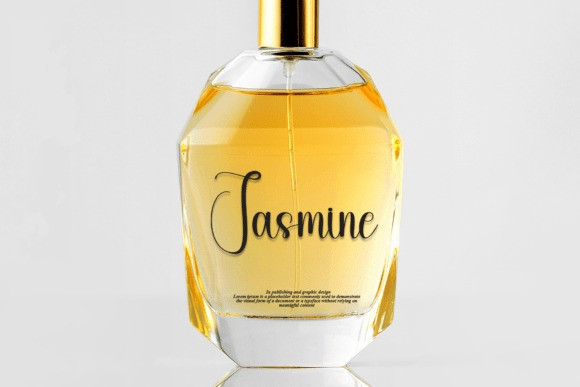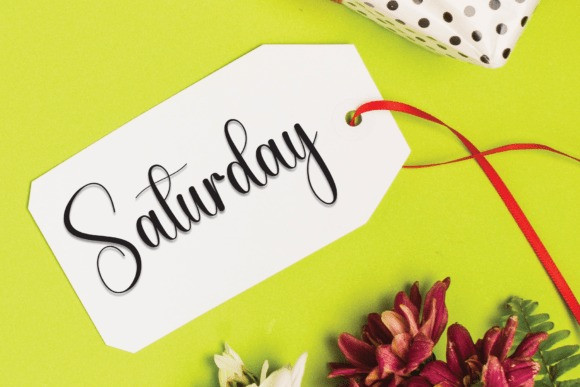
Mountain Handwriting Font
Mountain Handwriting Font a charming and cordial handwritten display font that exudes warmth and cheerfulness. This delightful font, full of character and personality, is perfect for crafting wedding invitations, greeting cards, and any design that requires a touch of fun. Turn any plain text into an irresistible reading experience with this sweet and friendly font, designed to bring smiles to everyone’s faces!